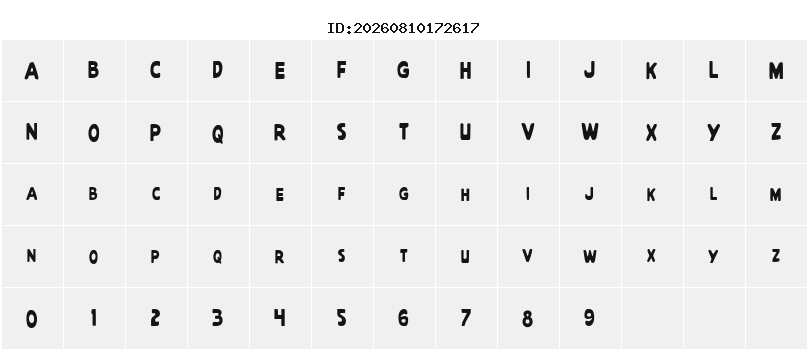
Quartermain Condensed Preview
• Font Name: Quartermain Condensed
• Font Style: Condensed
• Font ID: Quartermain Condensed
• Full Font Name: Quartermain Condensed
About Quartermain Condensed.ttf
Quartermain Condensed.ttf is a modern, elegant sans-serif font designed for ultimate readability and visual harmony. Perfect for branding, headlines, web design, and print materials.